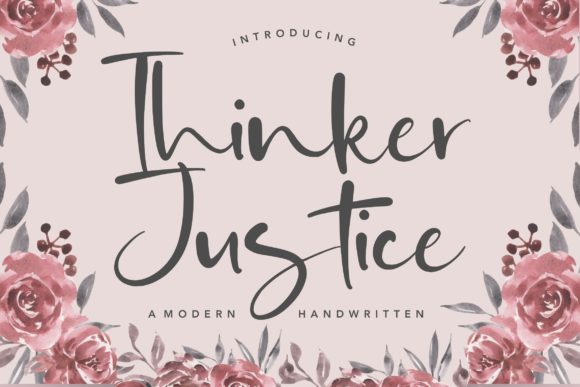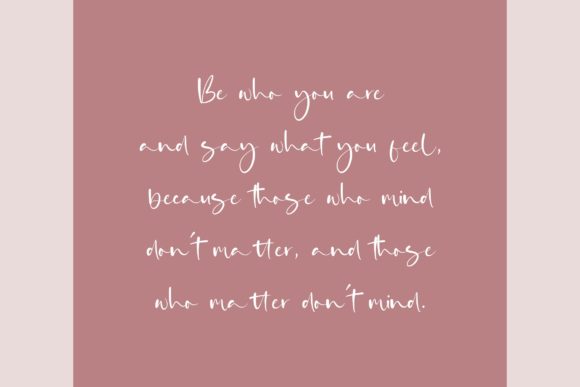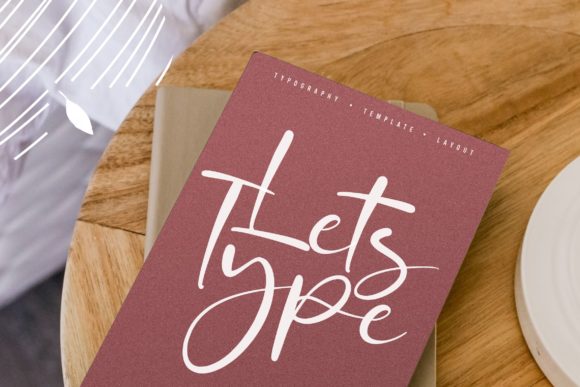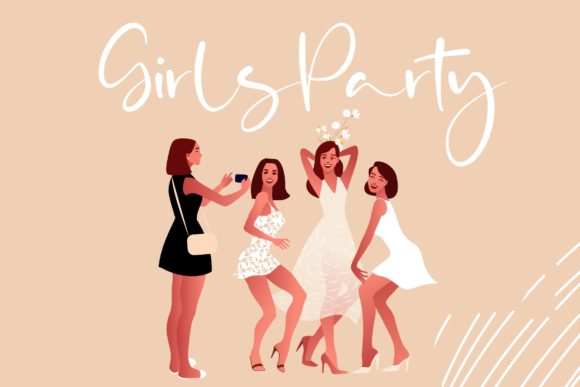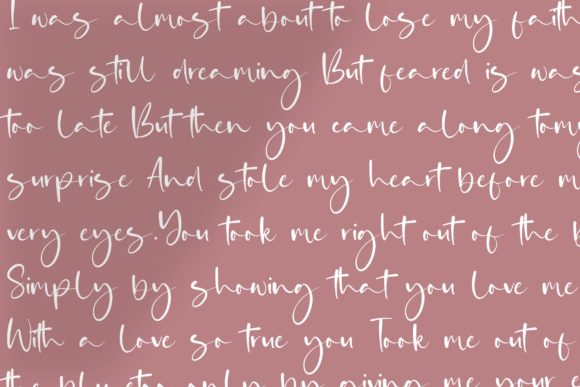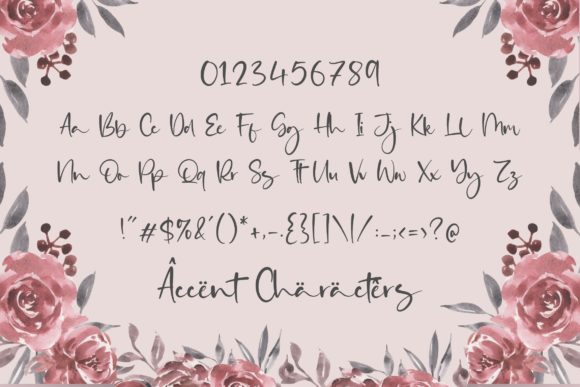
Thinker Justice Font
About Thinker Justice Font
Thinker Justice is a trendy and modern handwritten font. Simple and natural, this font will become your top choice for formal and informal designs in no time!